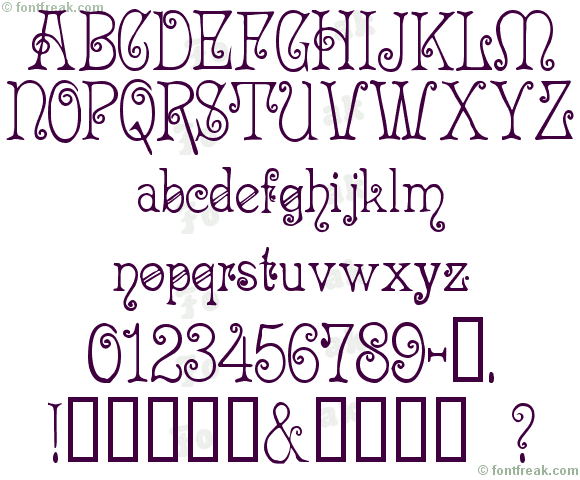
About Acadian
The Acadian font, designed by David F. Nalle and released by The Scriptorium in 1994, is a distinctive serif typeface that elegantly combines historical influences with modern usability. This shareware font is rooted in the original design by H. Thorp from 1883, showcasing a rich heritage that appeals to both traditionalists and contemporary creators alike. Characterized by its moderate stroke weight and subtle contrast, Acadian features well-defined serifs that add a touch of sophistication to any project. The spacing is thoughtfully designed to ensure legibility while maintaining an inviting appearance.
Acadian is versatile and finds its best use in a variety of contexts. It shines in wedding invitations, where its elegant curves can evoke romance and charm. Additionally, it works beautifully for restaurant menus, providing an upscale feel that enhances the dining experience. Graphic designers can leverage Acadian for branding projects, particularly those that aim to convey a sense of history or craftsmanship. It is also an excellent choice for book covers and literary publications, giving a nod to classic typography that resonates with readers. Lastly, content creators looking for a distinctive typeface for online materials will find Acadian font free download options that make it accessible.
The target audience for Acadian includes graphic designers, small business owners, and content creators who appreciate a font that tells a story while remaining functional. The unique blend of historical elegance and modern adaptability sets Acadian apart from other serif fonts. Its ability to evoke emotion while providing clarity makes it a standout choice for various applications. Whether for print or digital media, Acadian enriches any design, ensuring that your message is communicated with both style and grace.